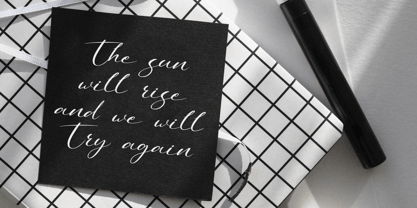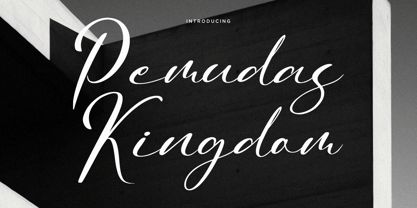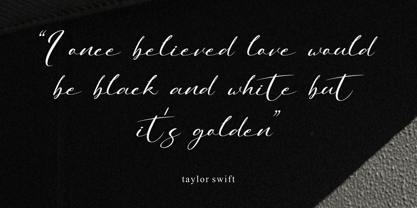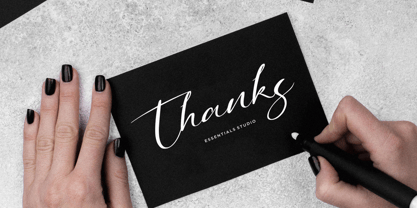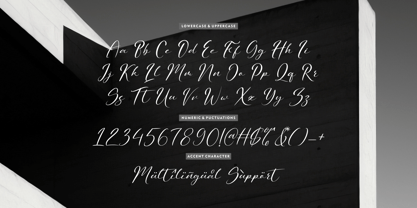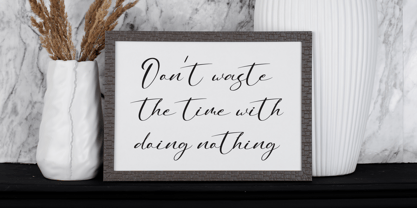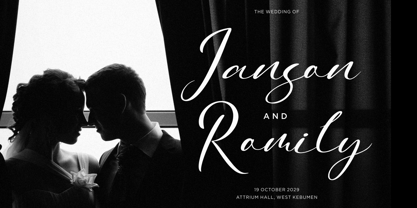
Pemudas Kingdom
by Essentials Studio
The Pemudas Kingdom Font Family was designed by Bagus Panji Asmoro and published by Essentials Studio. Pemudas Kingdom contains 1 styles. More about this family
Experience the elegance of Pemudas Kingdom, a captivating script font meticulously crafted by Essentials Studio. With its airy sophistication and artful design, it’s an ideal choice for wedding invitations, serene craft designs, compelling banner creation, or eye-catching branding opportunities. Regardless of the background, Pemudas Kingdom makes an indelible impression with its seamless blend of classic grace and contemporary style.
Designers: Bagus Panji Asmoro
Foundry: Essentials Studio